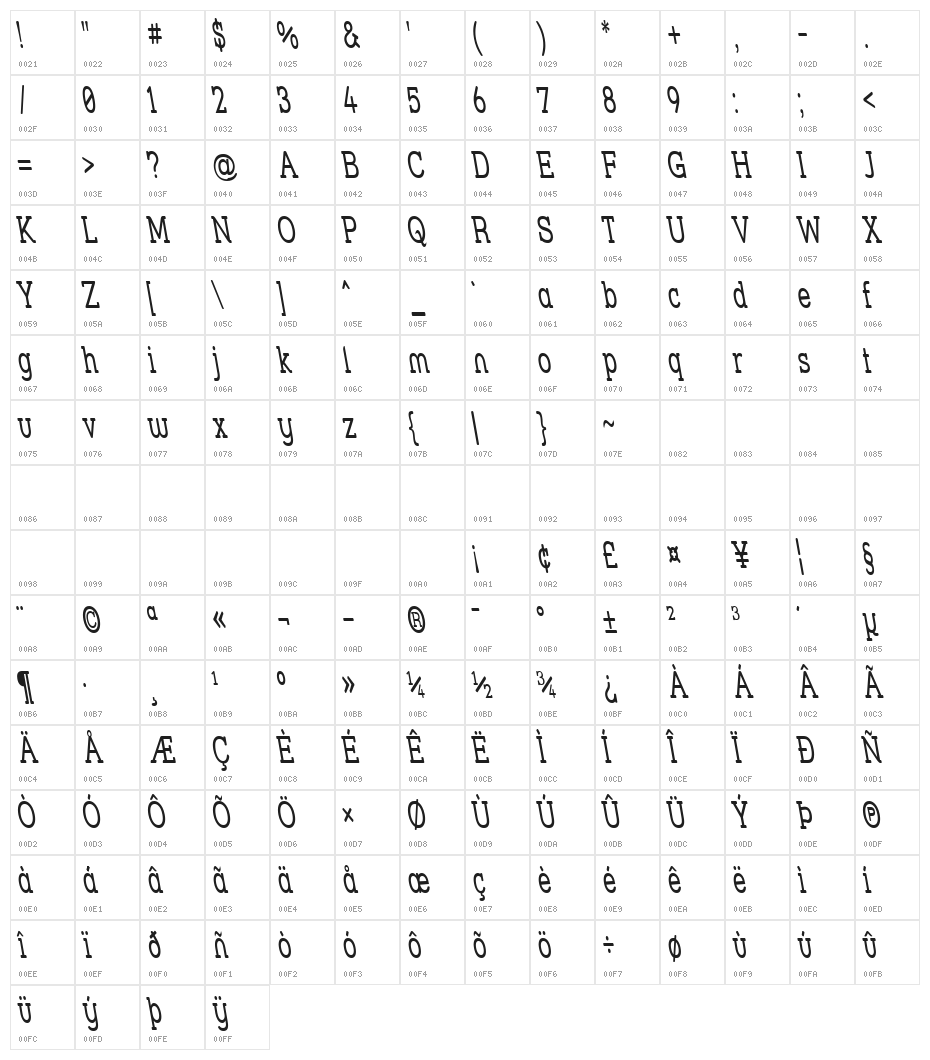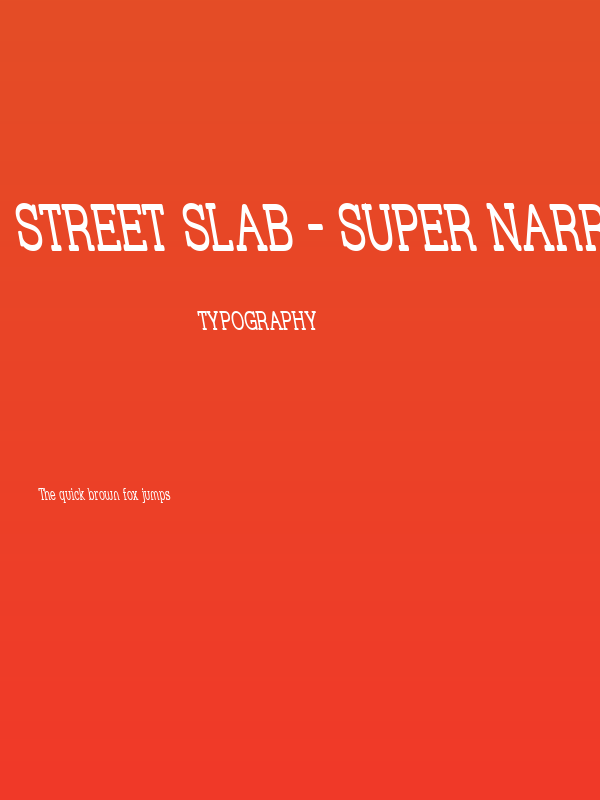
Street Slab - Super Narrow Rev Font
Street Slab - Super Narrow Rev Description
This font features a distinct slab serif style with a super narrow width, giving it a unique and modern appearance. The characters are tall and condensed, with pronounced serifs that add a touch of elegance and sophistication. The uppercase letters maintain a consistent height, while the lowercase letters are slightly shorter, creating a balanced and harmonious look. The numerals are clear and legible, making them suitable for various applications. Special characters are well-defined, ensuring versatility in design projects. Overall, this font combines traditional serif elements with a contemporary twist, making it ideal for eye-catching headlines and branding materials.
| Use Case | Headlines, Branding, Editorial Design |
| Proposed Projects | Ideal for branding, editorial design, posters, and headlines where a modern yet classic look is desired. |